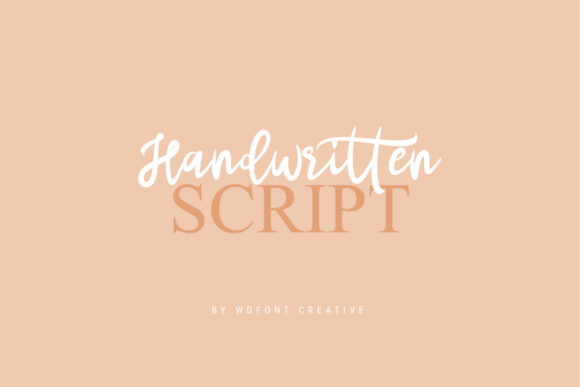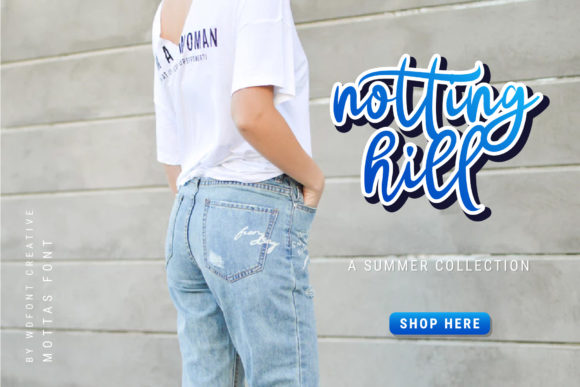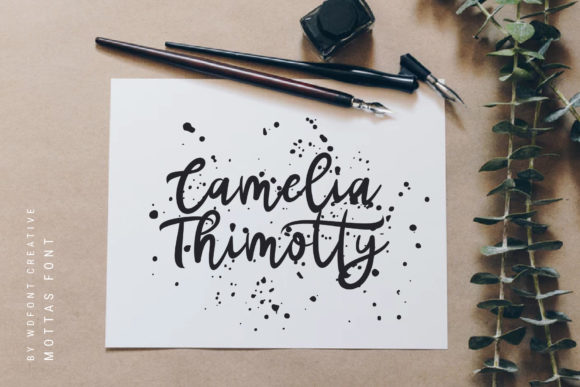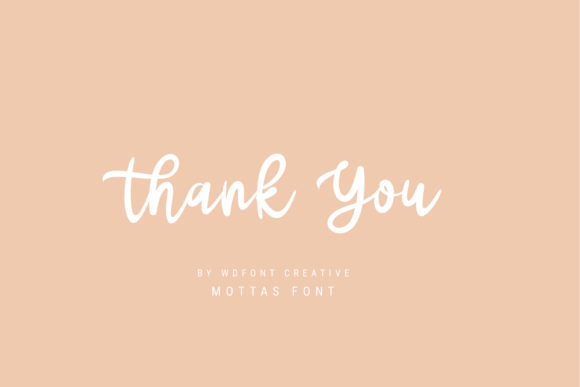
Mottas Script Font
About Mottas Script Font
Mottas Script is a fun and modern handwritten font with an authentic feel. Use it for any creative project that needs a special, unique twist.